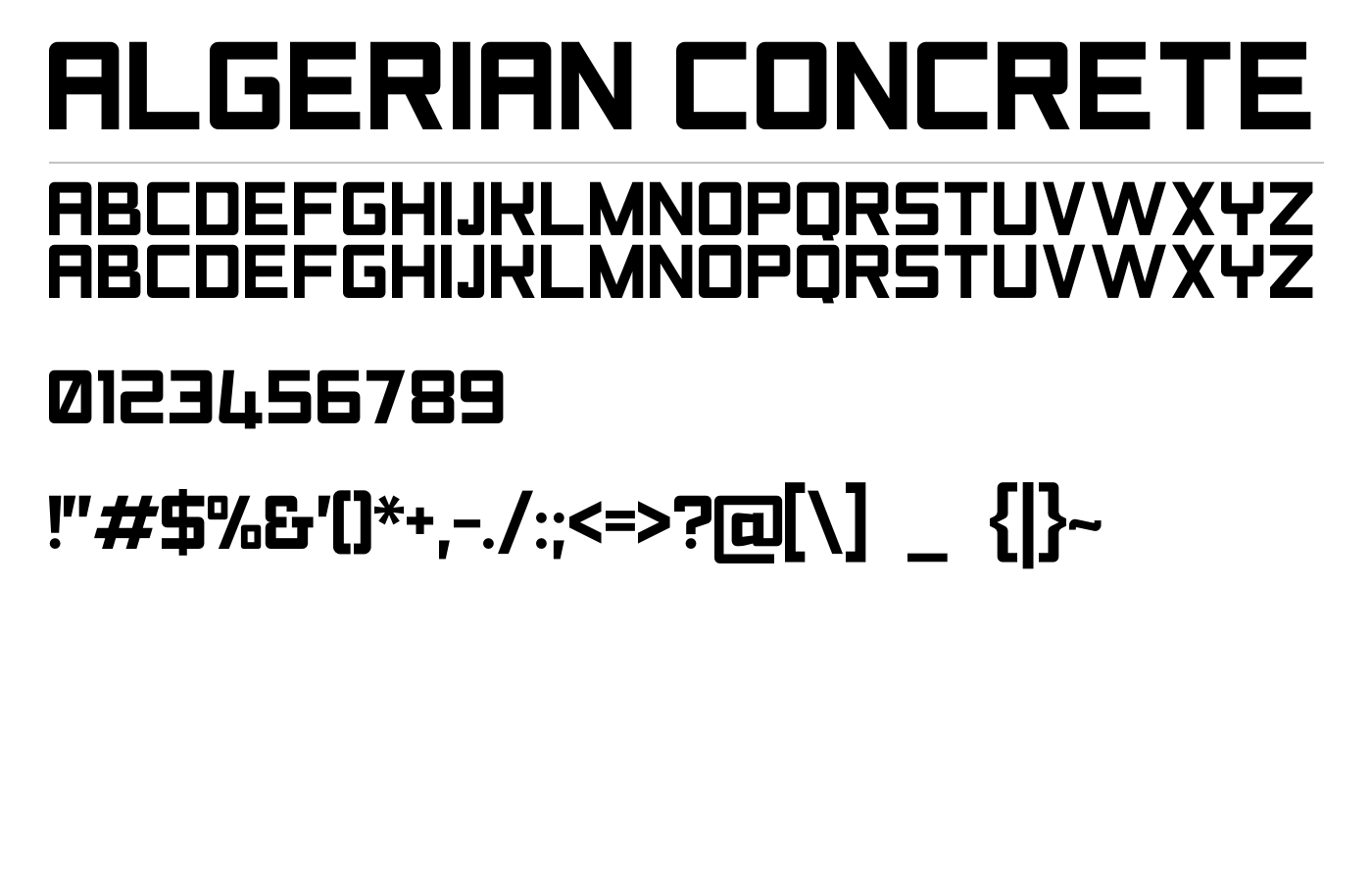
Algerian Concrete is a bold, geometric sans serif font with a strong industrial feel, featuring uniform stroke widths and sharp, squared letterforms that create a modern and sturdy appearance. Its all-caps design and tight spacing make it ideal for impactful headlines, logos, and branding that seek to convey strength and precision. This font works well in contexts where a clean, architectural style is desired, such as technology, construction, or futuristic themed projects.
Algerian Concrete Font
About Algerian Concrete Font
| Font family | Algerian Concrete Font |
| Designer | Abdelhakim Touhami @Hakimgraphiks |